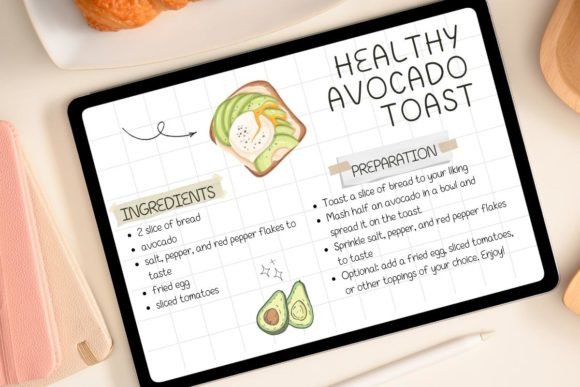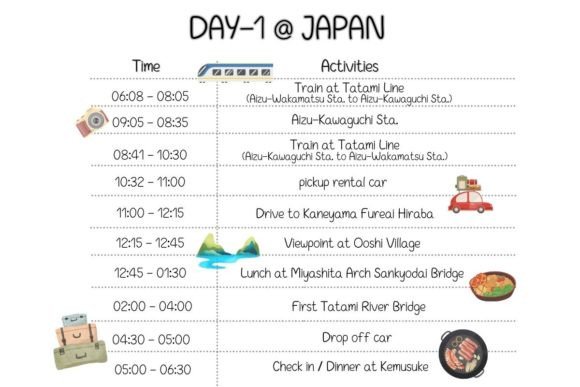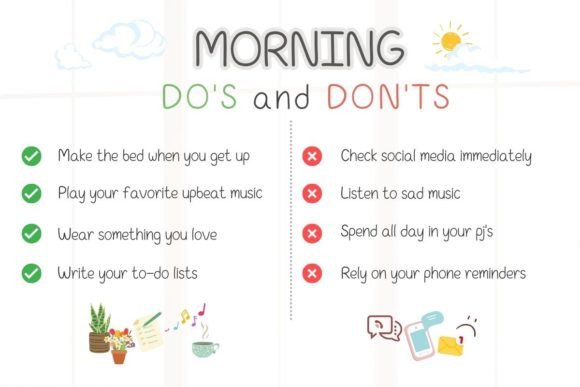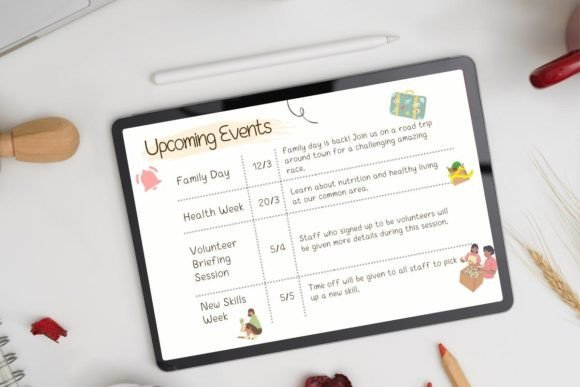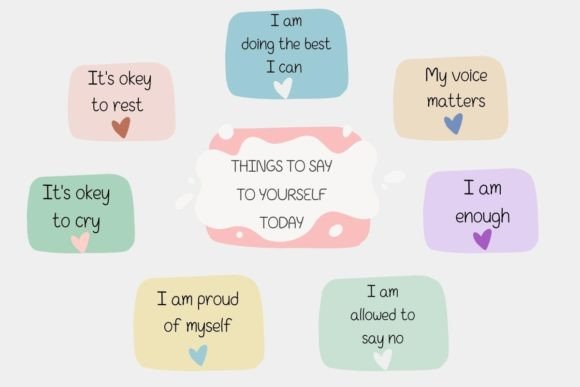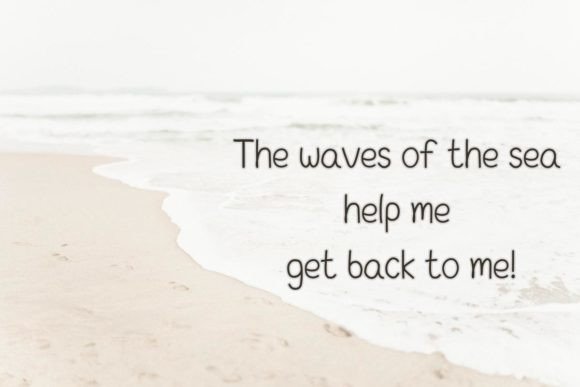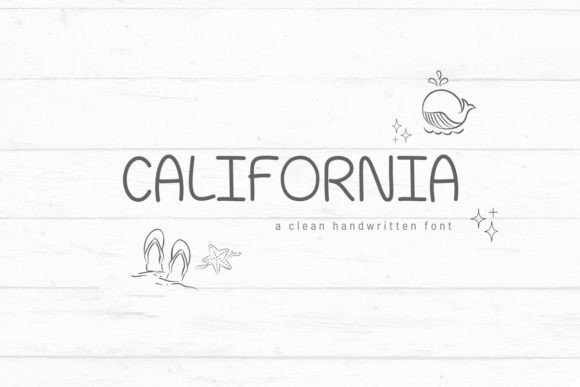
Introducing California Font: The Perfect Handwritten Font for Your Design Needs
Are you a designer or crafter looking for a unique and charming font to elevate your designs? Look no further than California Font! This fun and friendly handwritten font is perfect for turning any design idea into a true standout. With its distinctive charm, California Font is sure to inspire you to create lovely designs that capture the essence of the Golden State.
What is California Font?
California Font is a carefully crafted handwritten font that embodies the spirit of California’s laid-back and adventurous vibe. Its unique lettering style is reminiscent of the state’s iconic signage, posters, and branding. The font features a distinctive blend of cursive and print elements, making it both elegant and approachable.
Key Features of California Font
- Handwritten style: California Font boasts a genuine handwritten look that’s perfect for creating personal and relatable designs.
- Unique charm: The font’s distinctive character is inspired by California’s eclectic style, making it a standout in any design.
- Versatile: California Font is suitable for a wide range of design projects, from branding and advertising to crafting and DIY projects.
- Easy to read: Despite its handwritten style, California Font remains clear and legible, making it perfect for use in body text or titles.
How to Use California Font in Your Designs
California Font is an incredibly versatile font that can be used in a variety of design projects. Here are some ideas to get you started:
- Branding and logos: Use California Font to create a unique and memorable logo that captures the essence of your brand.
- Social media graphics: Add a touch of California cool to your social media graphics, including Instagram posts, Facebook covers, and Twitter headers.
- Planners and journals: Create beautiful and functional planners and journals with California Font as the perfect accompaniment to your designs.
- Crafting and DIY projects: Use California Font to add a personal touch to your crafting and DIY projects, such as papercrafting, scrapbooking, and more.
Tips for Getting the Most Out of California Font
To truly make the most of California Font, here are some expert tips:
- Experiment with colors: California Font looks amazing in a range of colors, from bright and bold to soft and pastel.
- Mix and match: Combine California Font with other fonts to create a unique and eye-catching design.
- Play with textures: Add texture and depth to your designs by incorporating California Font into mixed-media projects.
California Font is a one-of-a-kind handwritten font that’s sure to bring a touch of California cool to your designs. With its unique charm, versatility, and ease of use, it’s the perfect choice for designers and crafters looking to create standout designs. So why wait? Get inspired by California Font today and turn your design ideas into true showstoppers!